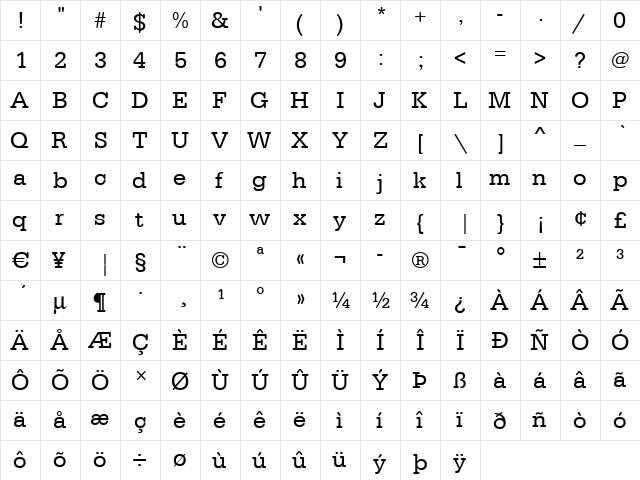
AstridBecker Regular
Design Context for AstridBecker Typeface
AstridBecker offers clean, dependable letterforms without strong stylistic allegiance, making it a practical choice for designers who need flexibility.
Pro Tip: Use AstridBecker in both headline and body roles to test its range before committing to a single application.